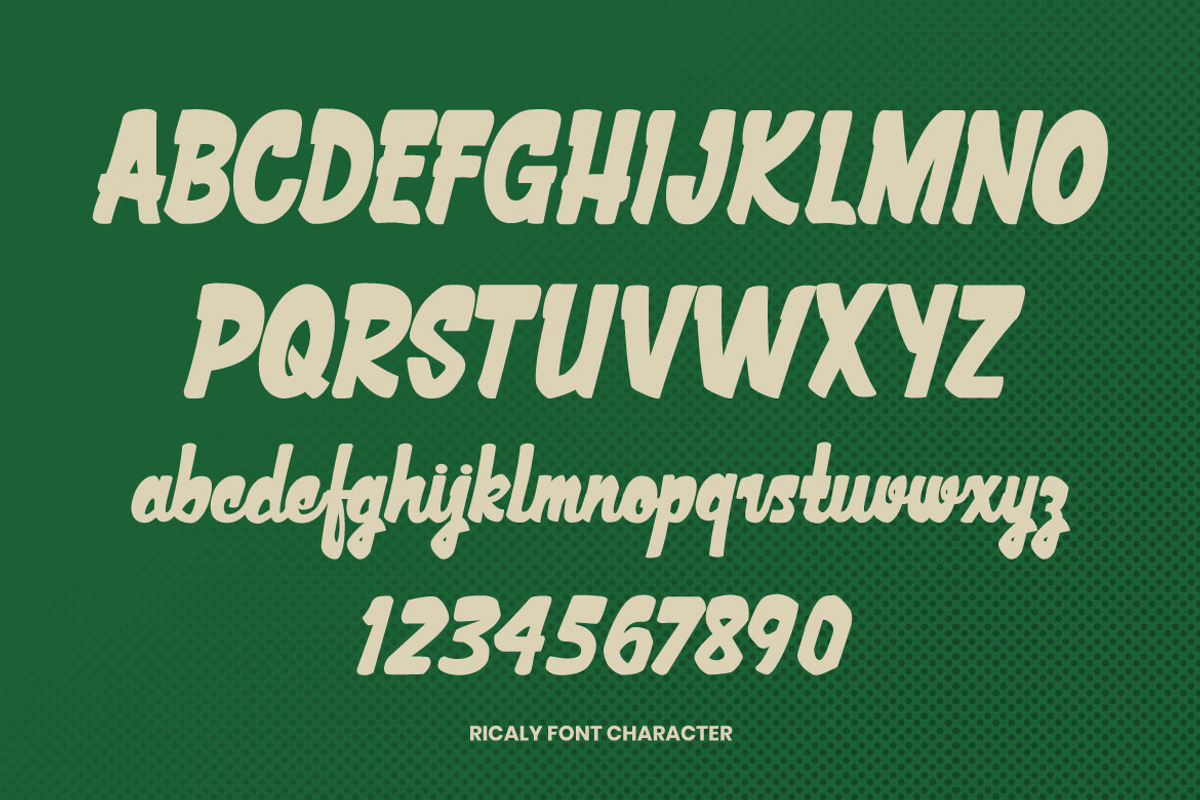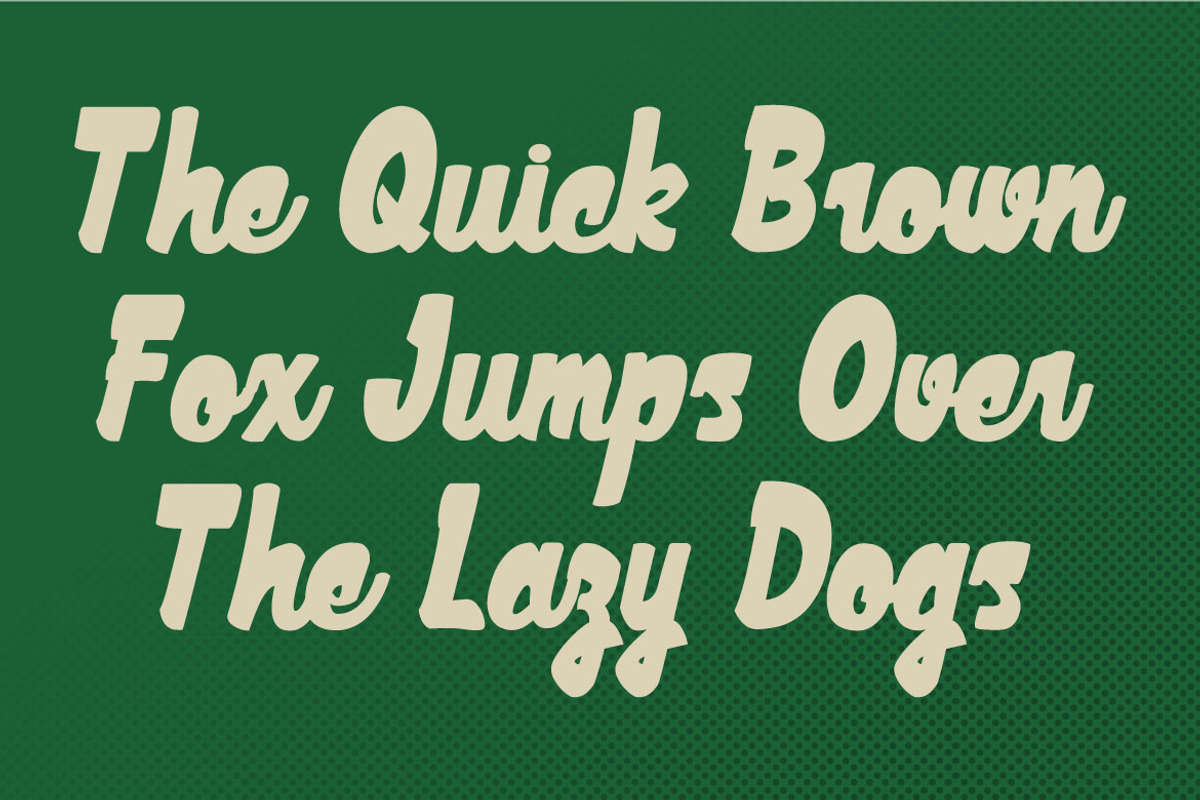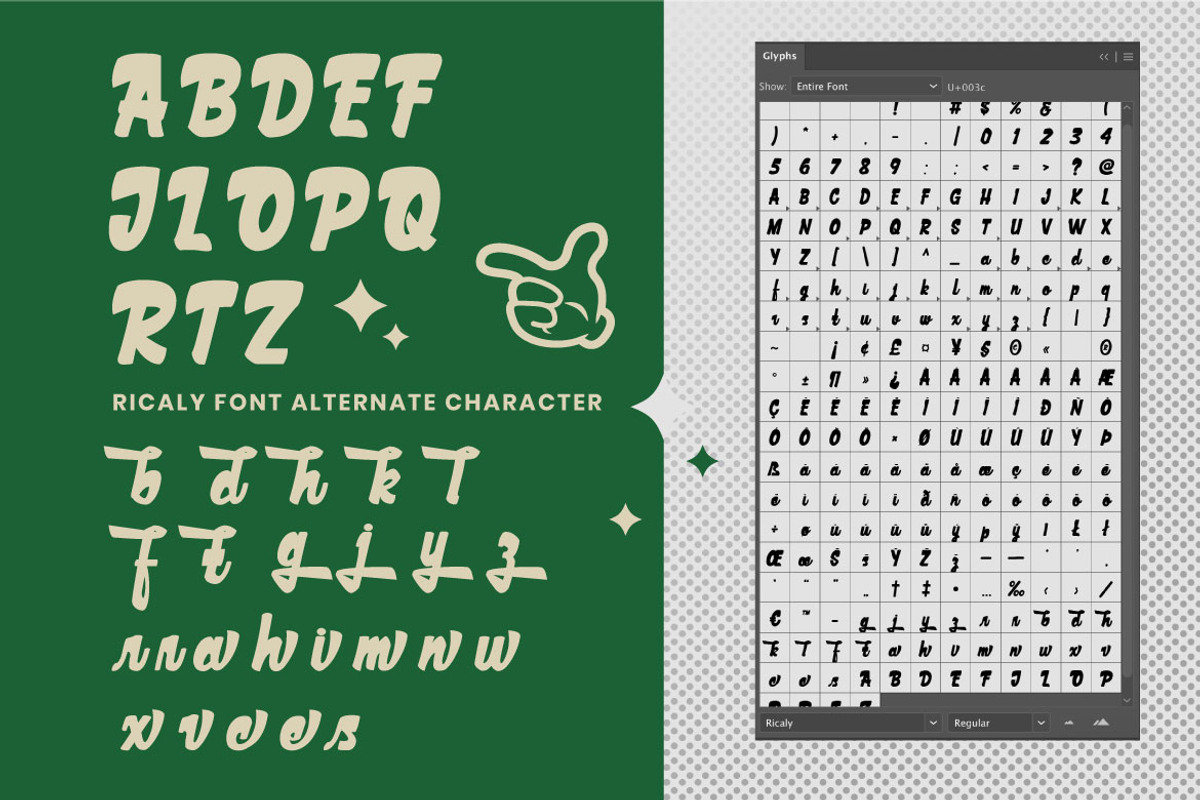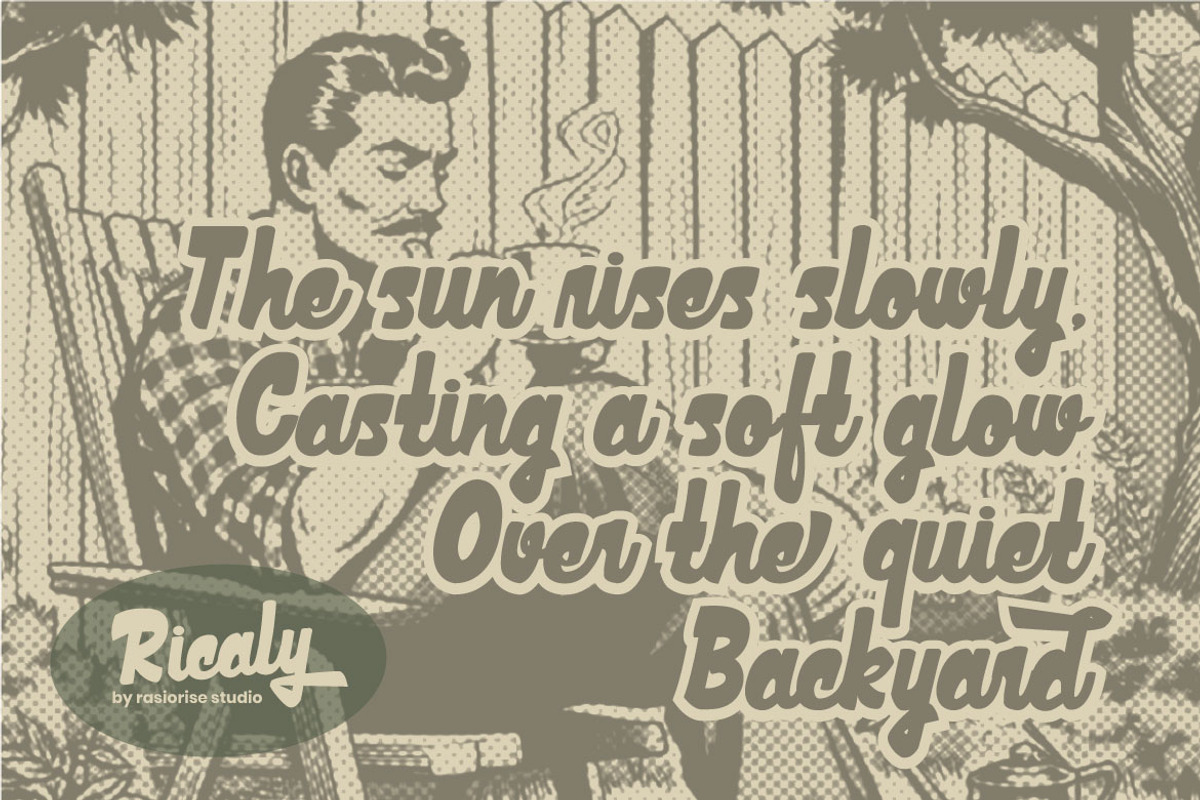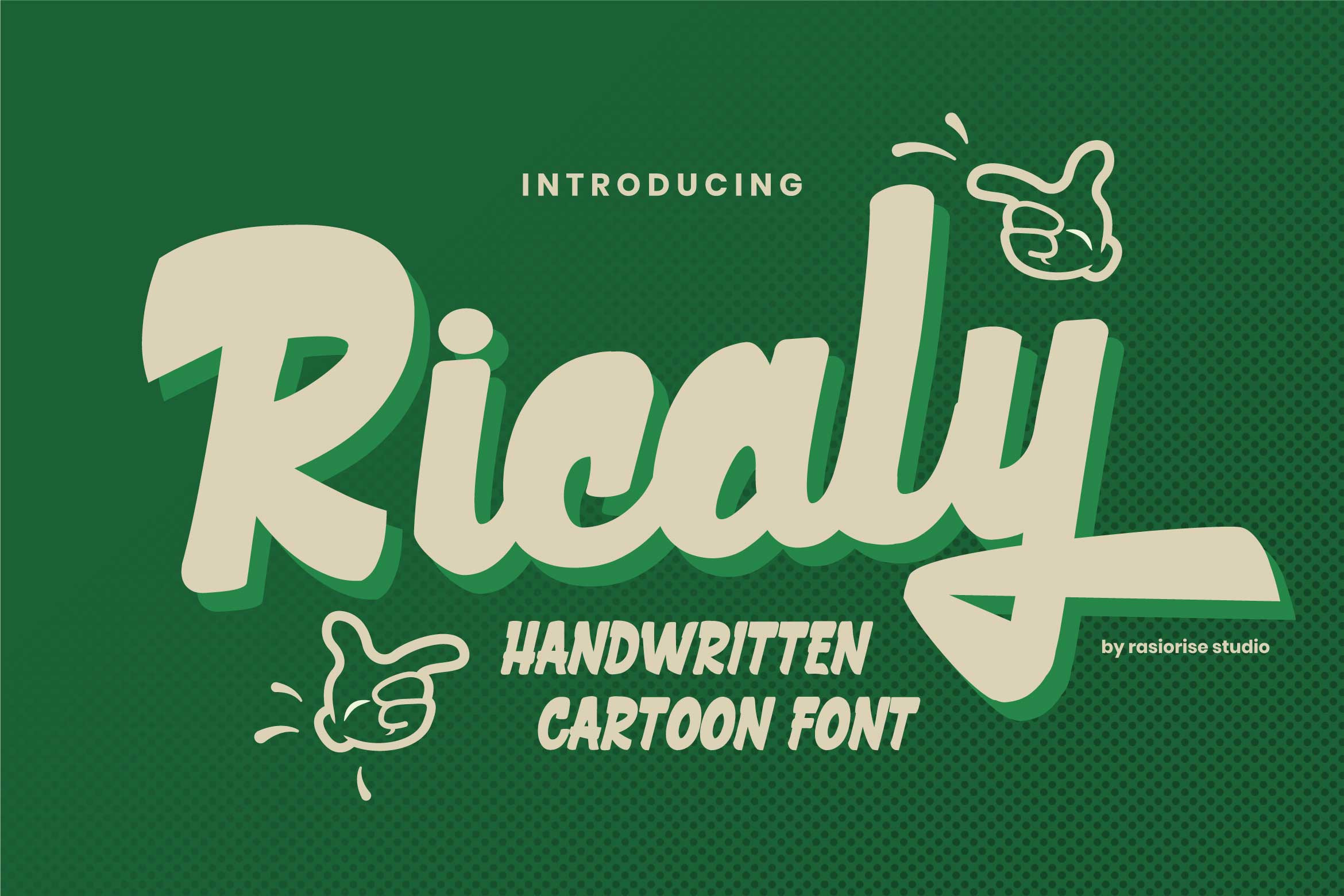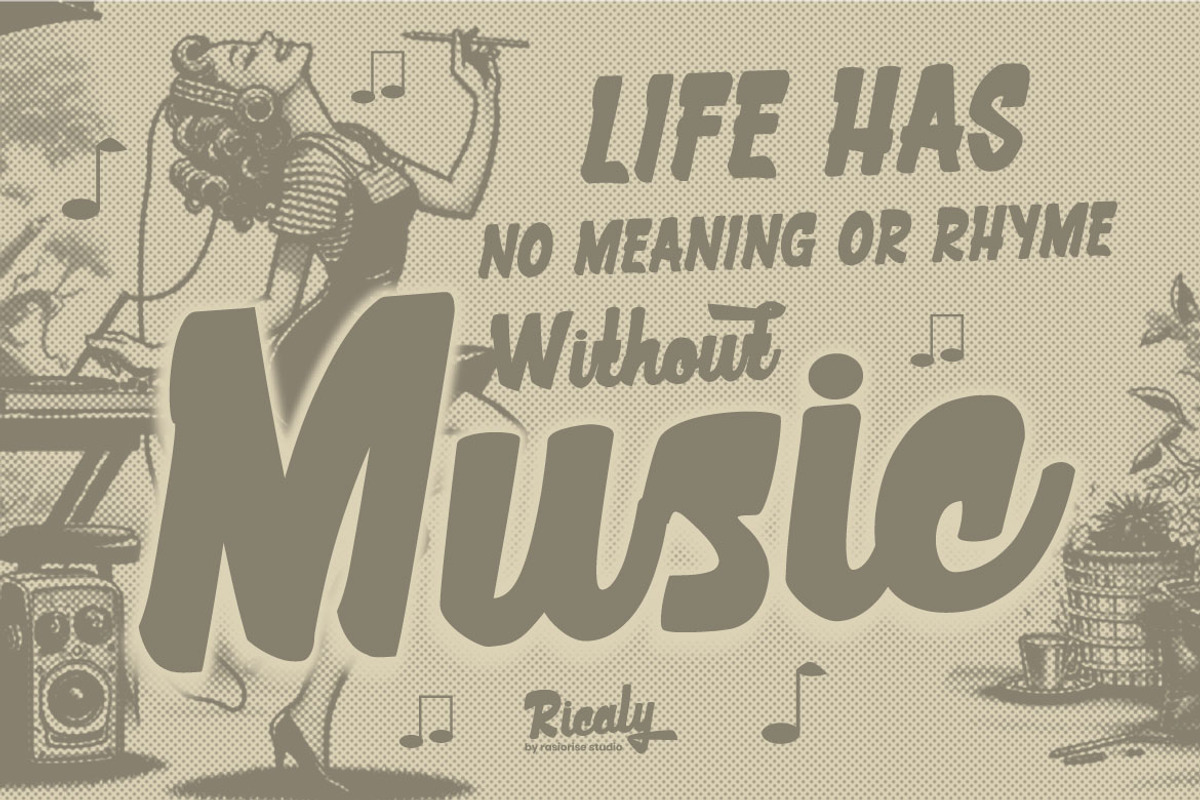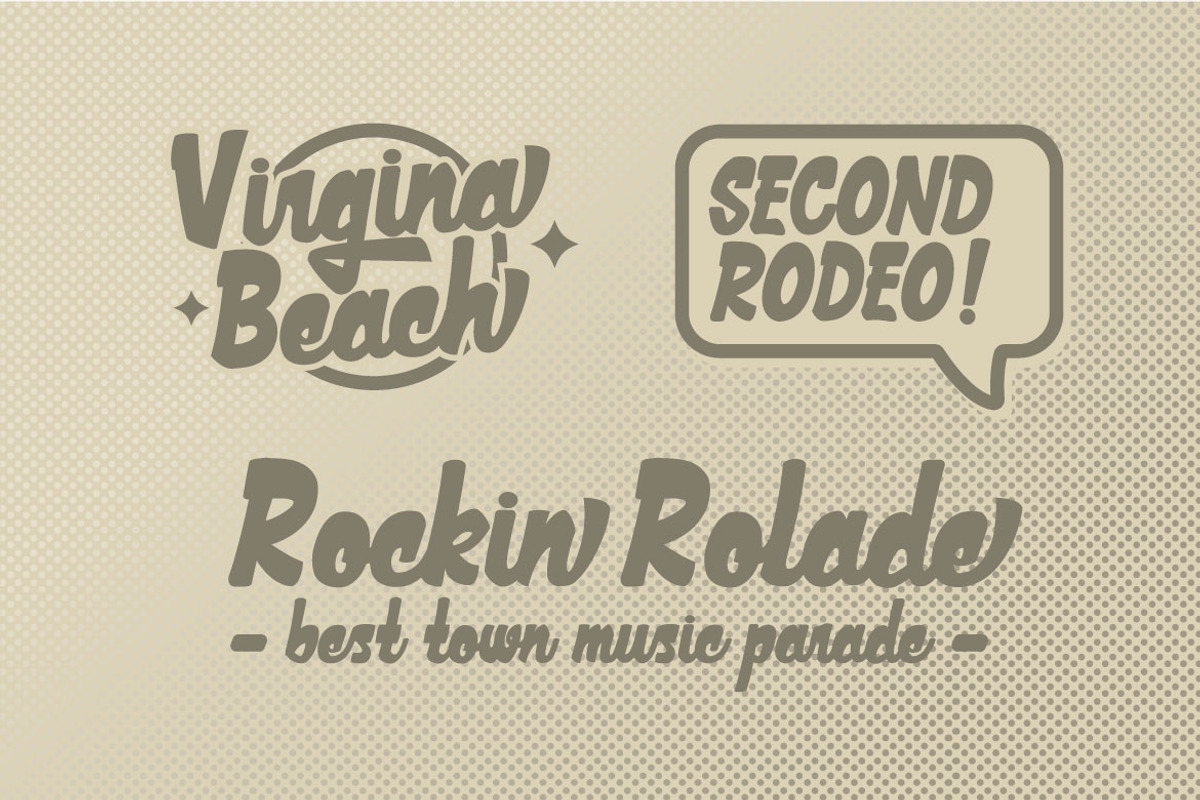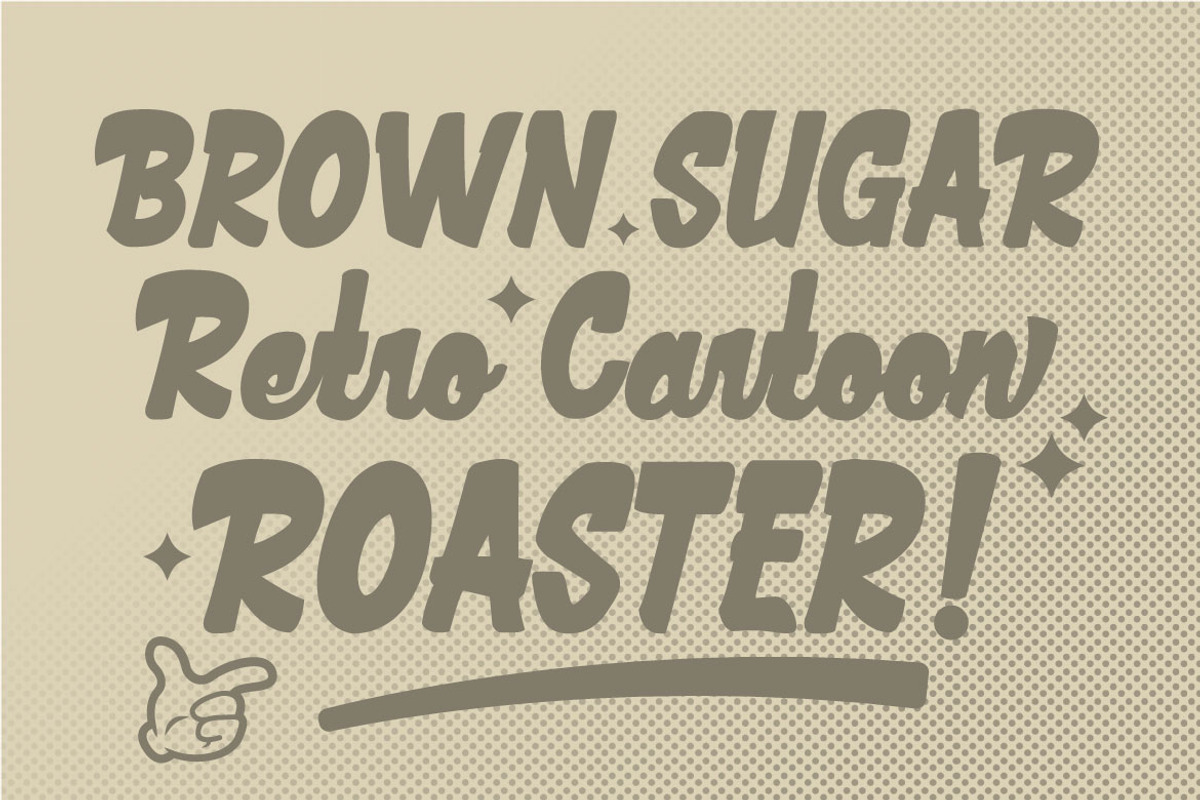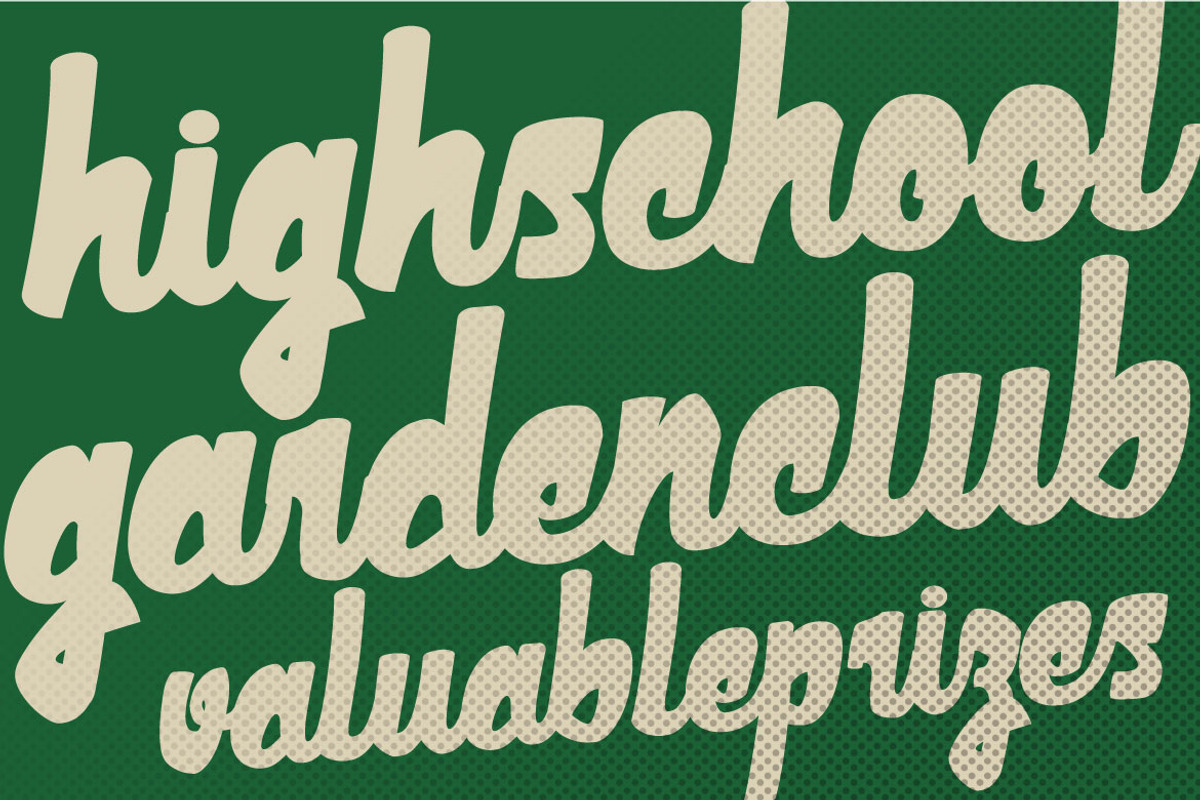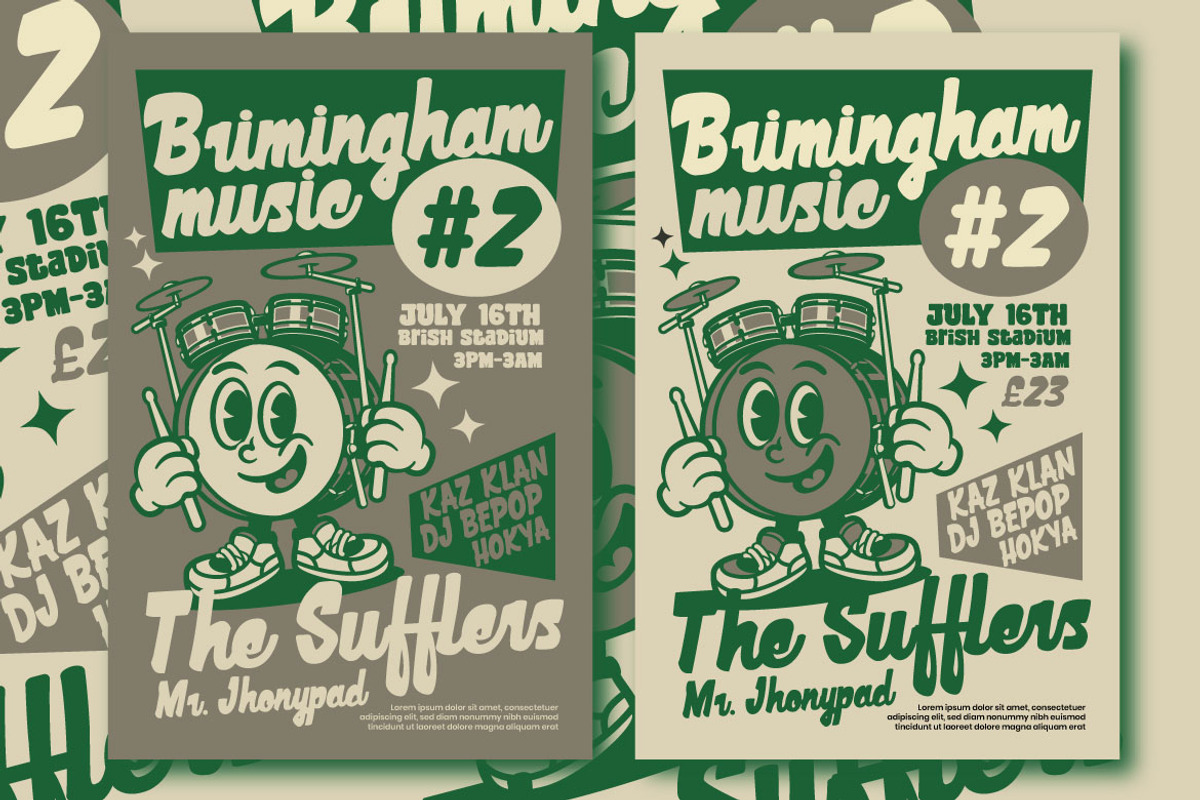
Ricaly a Handwritten Cartoon Font
Hello Everyone! Ricaly has been released for those of you who are looking for a Cartoon Western Handwritten Script font. A Script handwritten font that combines the Western Script typeface and text panel Comic. This font is inspired by Retro Comic cartoon and oldskool poster. With easy-to-read character font for your project, also you can easily create a great and stand-out typography and Headline. Unleash your creativity with Ricaly Font and let your retro cartoon comic style!.
Ricaly Font is perfect for Logotype, Book Cover, Gift Cards, Greeting Cards, Posters, Merchandise, Packaging Labels, Magazines, or any type of advertising purpose.